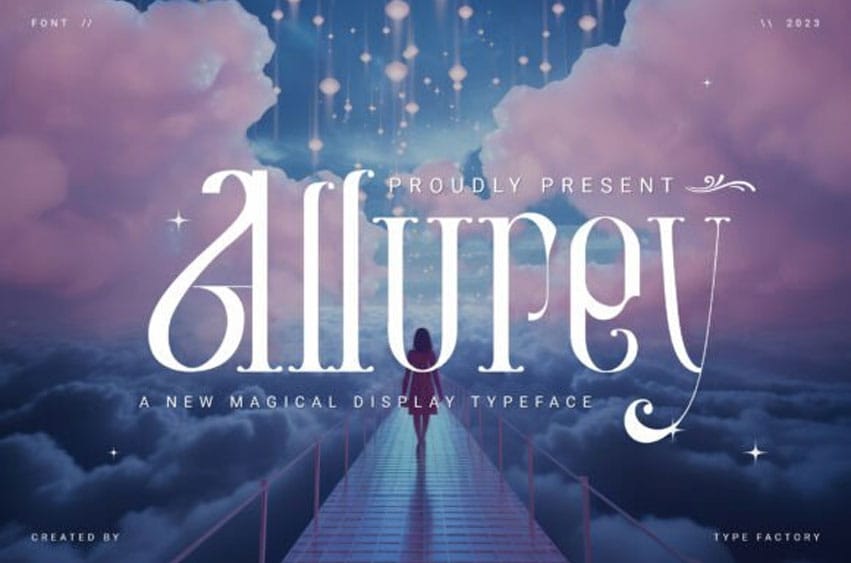
Allurey Font is a magical display serif typeface featuring elegant letterforms, decorative curves, and expressive swashes.
Designed for eye-catching titles and creative typography, Allurey works beautifully for book covers, fantasy themes, branding, posters, and cinematic designs. With its elegant proportions and decorative personality, Allurey is ideal for projects that require a magical, storytelling, and imaginative typographic atmosphere.